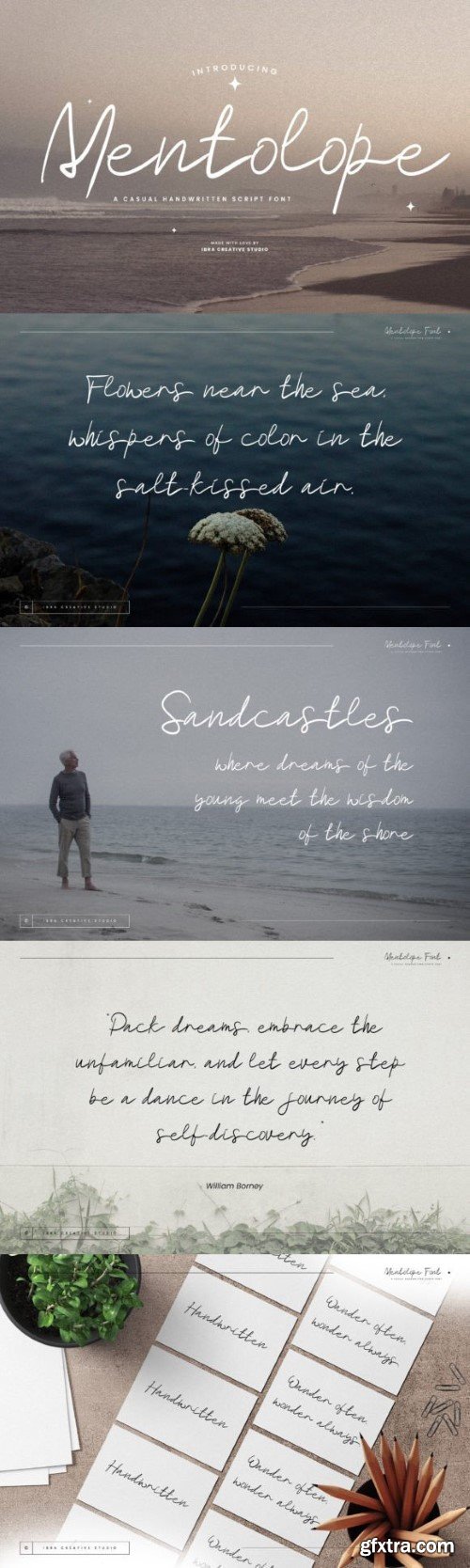
mentolope font
Mentolope, a casual handwritten script font, embodies an effortless blend of informality and charm, offering a versatile typographic experience. Its fluid strokes and gentle curves give each character a relaxed and organic appearance, reminiscent of handwritten notes shared between friends. Whether used for personal projects, invitations, or informal branding, Mentolope adds a touch of warmth and authenticity to any design.